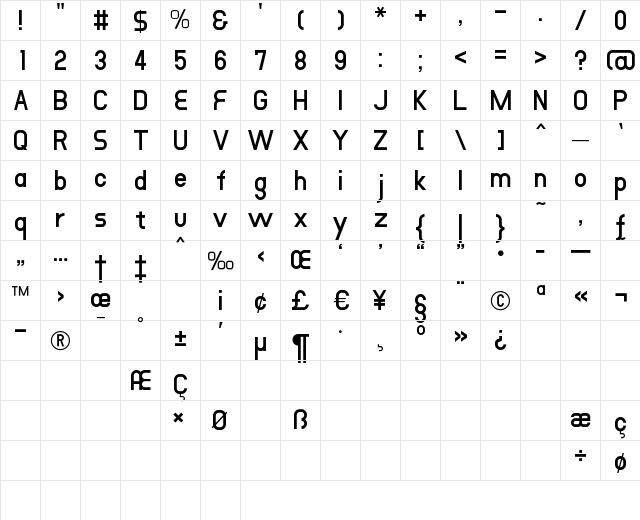
DustHome Medium
Design Context for DustHome Typeface
DustHome offers clean, dependable letterforms without strong stylistic allegiance, making it a practical choice for designers who need flexibility.